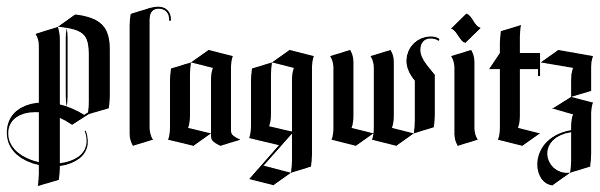
Plagwitz
Plagwitz is the name of the part of Leipzig where the Werkstätten and Museum für Buchkunst are to be found, which, in September 2000, hosted the ATypI Congress. During the lecture on Black Letter type faces, a lovely quotation from Bismarck could be...